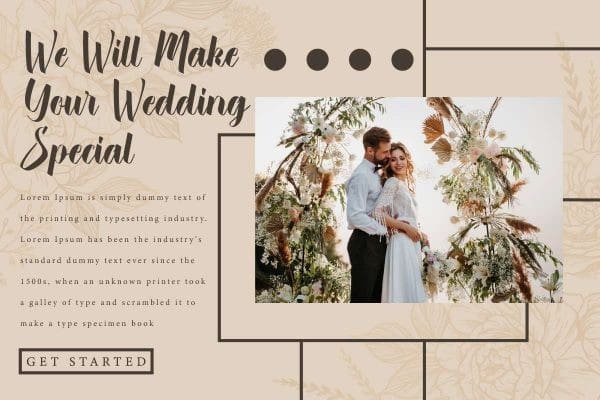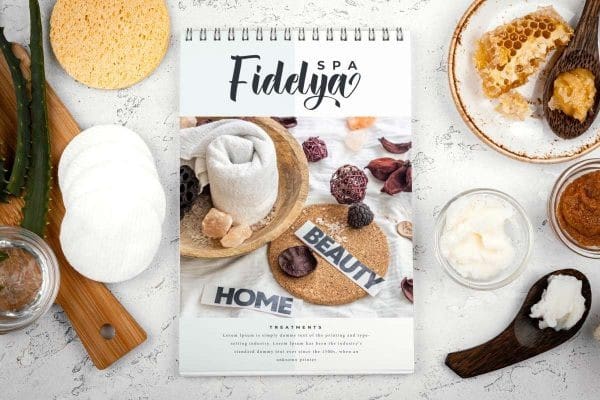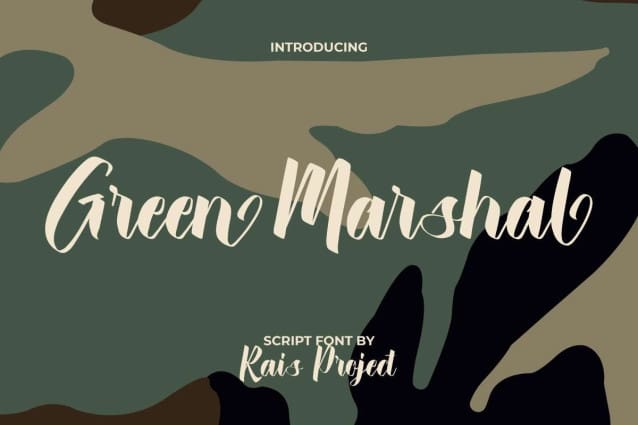
Green Marshal Font
Green Marshal Font is a modern calligraphy font. This font is made up of bold fine lines that connect beautifully and still easy to read. This font has modern appearance making it suitable for many industries, such as beauty product, café, event or wedding organizer, fashion, florist, homeware, printing, publishing, salon and spa, and more!
Green Marshal Font includes a full set of Uppercase and Lowercase Letters, Numerals, and large range of punctuation. This font also has Ligature and Alternate characters that will beautify your various projects, such as brand logo, business card, calendar, custom design, invitation, interior design, label, magazine, menu, poster, product packaging, quote, signage, title, website, etc.